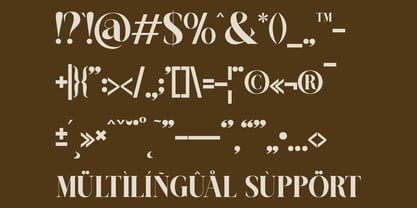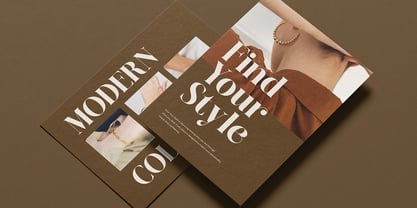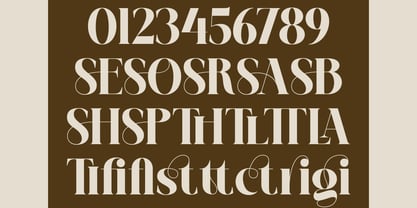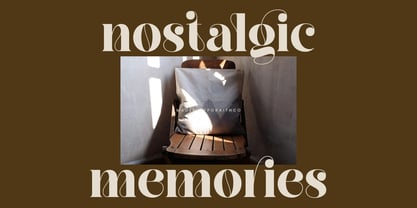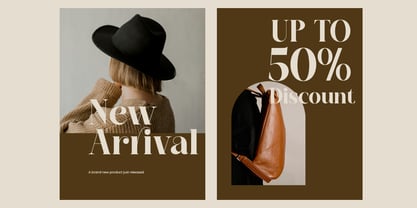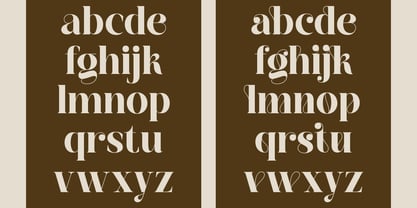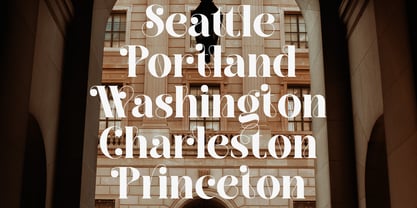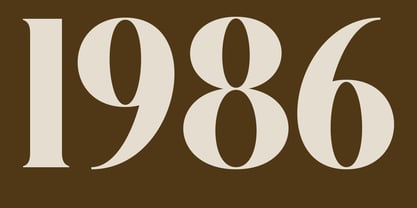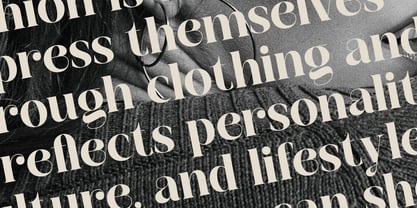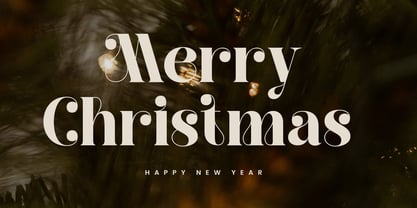
Belgina
Belgina is a modern serif typeface crafted with elegance and sophistication in mind. Designed to deliver a timeless yet contemporary feel, Belgina features refined letterforms, high-contrast strokes, and graceful curves that bring a luxurious character to any design.
This font is perfect for designers who want to create premium visuals with a strong identity. Belgina works beautifully for fashion branding, editorial layouts, logos, wedding designs, product packaging, and social media visuals.
With its stylish details and classy appearance, Belgina adds personality and exclusivity while remaining clean and readable.
Features:
- Alternates & Ligatures
- Punctuation & Numeral
- Modern & elegant serif style
- Unique and classy letterforms
- High-contrast strokes
- Professional and versatile use
- Suitable for digital & print projects
Belgina is a perfect choice if you’re looking for a serif font that feels modern, luxurious, and timeless — ideal for elevating your creative work.